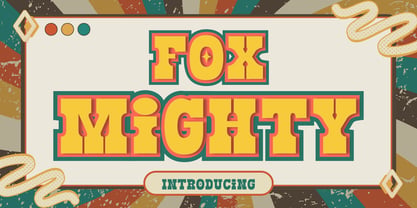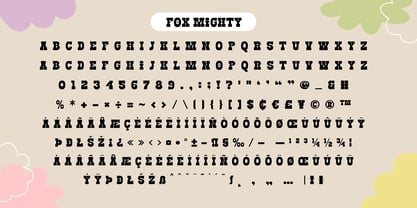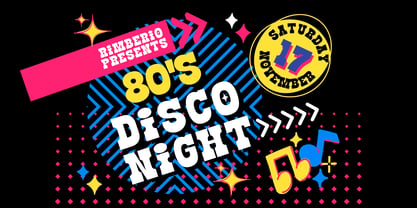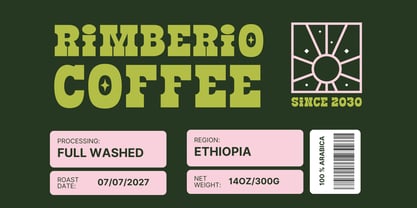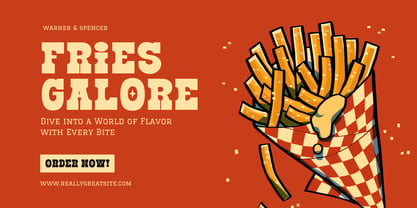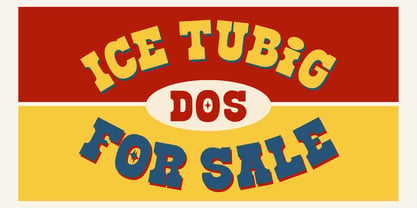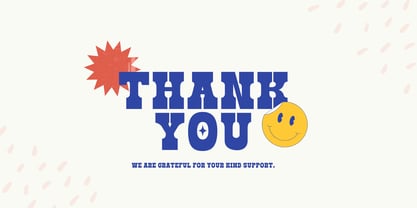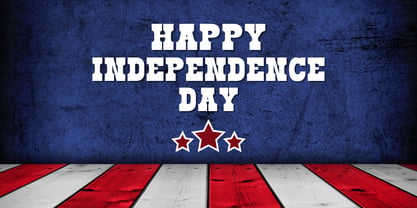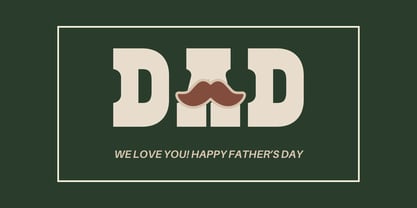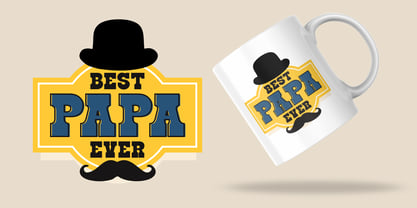
Fox Mighty
Die Schriftfamilie Fox Mighty wurde von Rattana Rattanawan entworfen und von Fox7 veröffentlicht. Fox Mighty enthält 1 Stile. Mehr über diese Familie
Fox Mighty – Bold Retro Western Display Font Introducing Fox Mighty, a bold and vibrant retro display font that brings vintage charm and playful personality to your design projects. Inspired by classic Western posters and circus typography, this font features chunky letterforms, strong outlines, and fun inner details that make every word pop with character.
Fox Mighty is perfect for:
☘️ Retro and vintage-themed projects
☘️ Father’s Day designs
☘️ Poster headlines
☘️ T-shirt prints
☘️Logos and branding
☘️ Product packaging
☘️ Kids’ party invitations
☘️ Coffee mugs and merchandise
☘️ Other
Bring your creative ideas to life with Fox Mighty — the perfect font for bold statements and retro charm.